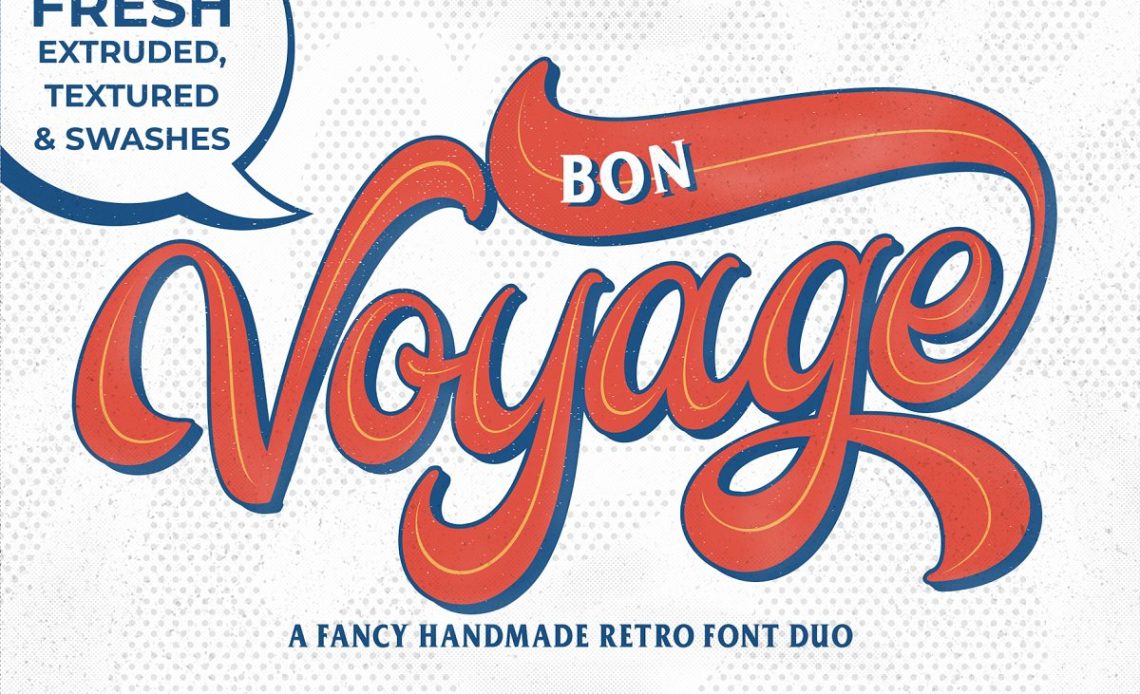
Introducing the Best Font Type For Headings: Bon Voyage Script! Inspired by the popular retro handlettering in the 70s, this font family by 50Fox Studio is the perfect blend of unique and elegant. With a touch of pop style and 526 glyphs spread across several precision layers, Bon Voyage Script is the epitome of creativity.
Using this font is a breeze - you won't waste any time creating your masterpieces. You get a complete package with a total of seven styles, including Bon Voyage Texture, Extrude Thin, Extrude Thick, Swash, and Serif. And that's not all! Hundreds of alternates, stylistic sets, ligatures, swashes, and multilingual characters make it an excellent choice for any design project.
This font family is versatile and can be used for anything from t-shirts/clothing, logos, printed quotes, badges, packaging, headlines, posters, cards, invitations, and more! Bon Voyage Script makes it effortless to be creative using online software like Canva. However, we recommend using editing software such as Adobe Illustrator, Photoshop, Corel, etc. to access all of the OpenType features.